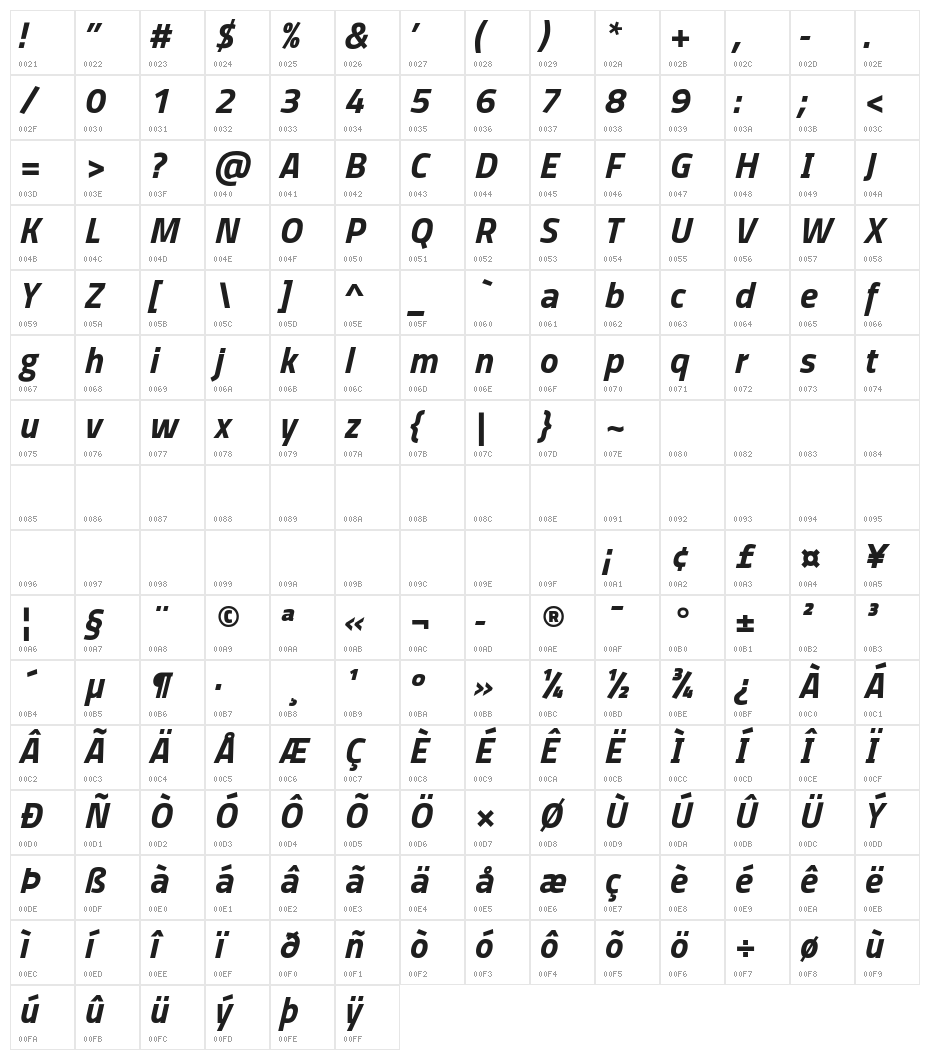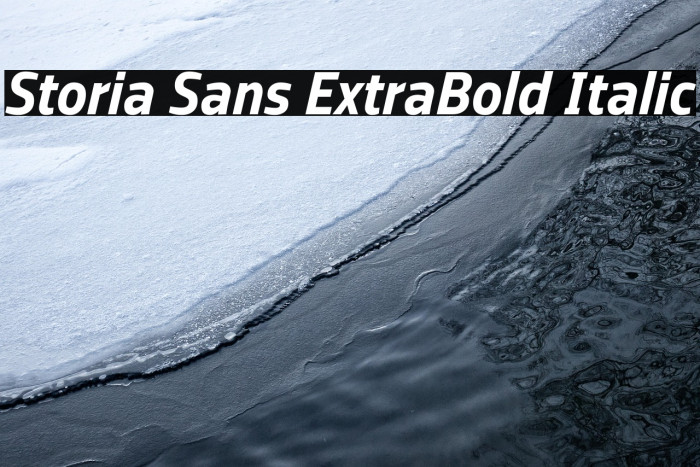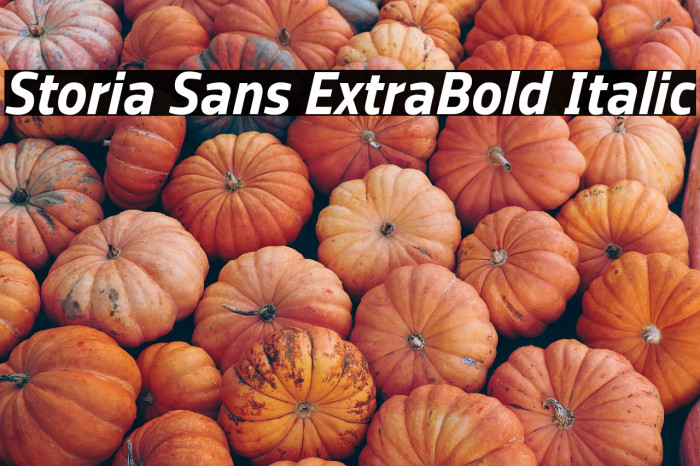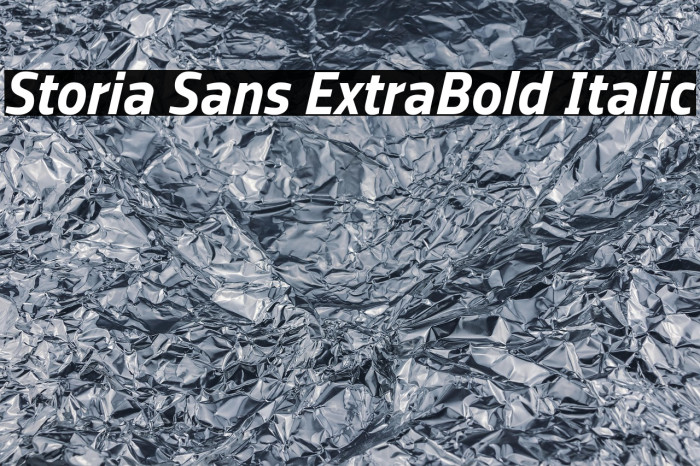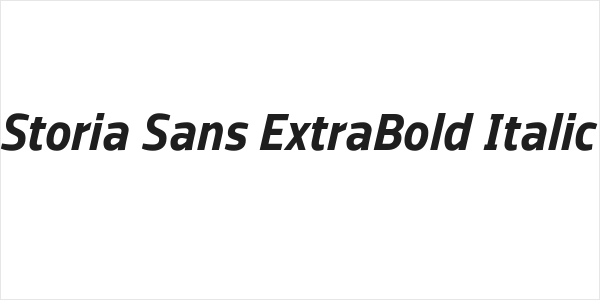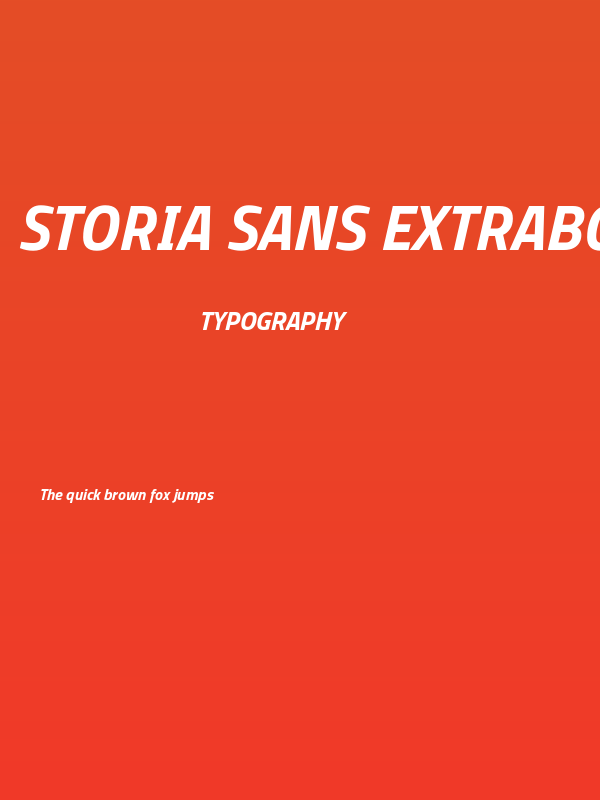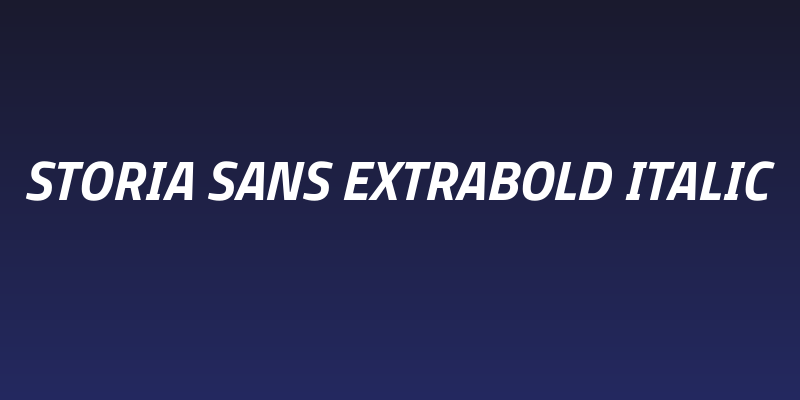
Storia Sans ExtraBold Italic Font
Storia Sans ExtraBold Italic Description
This font exhibits a strong and assertive presence with its extra bold weight and italic style. The characters are slightly slanted, adding a dynamic and forward-moving feel. The sans-serif design ensures a clean and modern appearance, making it highly legible. The strokes are consistent in thickness, providing a uniform look across all characters. The spacing between characters is normal, allowing for easy readability while maintaining a compact appearance. This font is versatile, suitable for various design needs where emphasis and clarity are required.
| Use Case | Headlines, Logos, Advertising |
| Proposed Projects | Ideal for headlines, advertising, branding, and any project requiring a strong visual impact. |